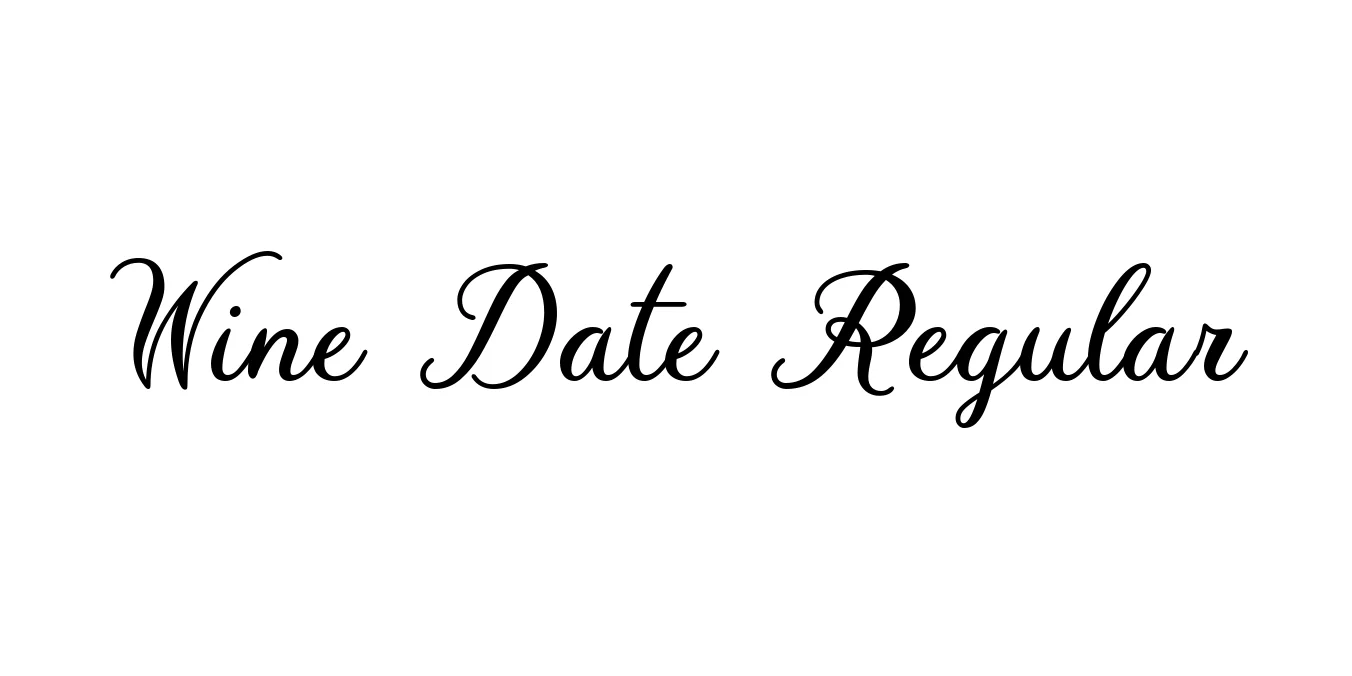
Wine Date Regular
Designed by Vultype Co.
| Font Name | Wine Date |
| Category | Handwritten Script |
| Designer | Vultype Co. |
Wine Date Regular is a charming and sophisticated handwritten font designed to evoke the relaxed and elegant atmosphere of a social gathering. Characterized by its fluid strokes and organic feel, it balances casual spontaneity with professional legibility, making it an excellent choice for branding projects that require a personal touch and a sense of warmth.
Developed by Vultype Co., this typeface features a unique set of ligatures and stylistic alternates that mimic natural penmanship. Its versatility allows it to shine in both digital and print media, particularly in layouts where a stylish, inviting aesthetic is desired to connect with a boutique audience or lifestyle brand.
Wine Date Regular Best Uses
Perfect for high-engagement Instagram quotes and lifestyle blog headers.
Ideal for wine tasting menus, wedding invitations, and greeting cards.
Great for artisanal product labels, cosmetic branding, and boutique tags.
Excellent as a sophisticated watermark for professional photography portfolios.